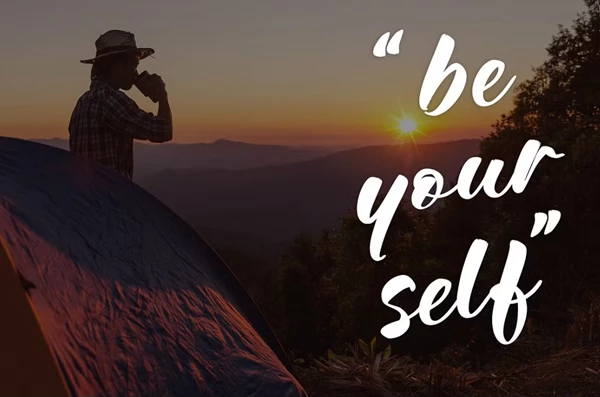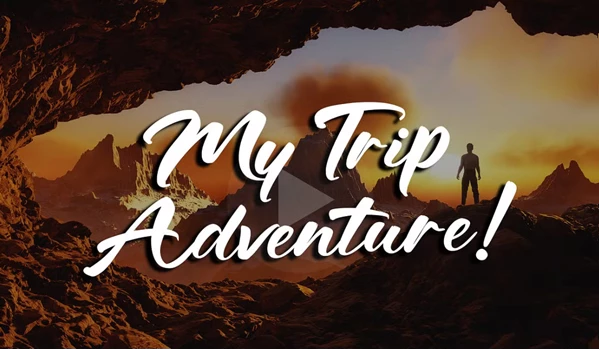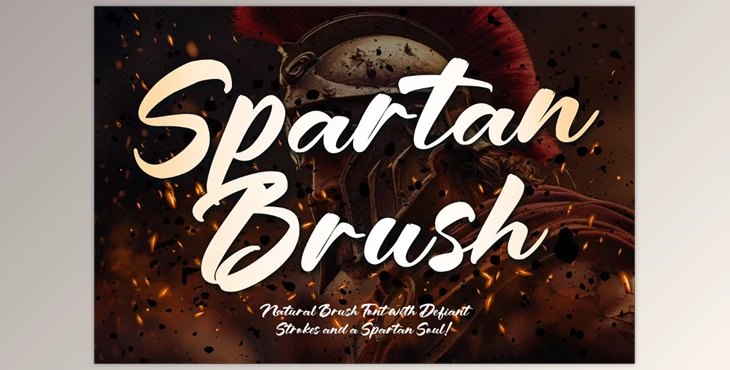
Spartan Brush - Brush Font:
The Spartan Brush font is a bold, brush handwritten typeface that represents the spirit of a warrior. This font features illustrated strokes that demonstrate the defiance of battle paired with the naturally flowing stylings of hand drawn painting. Therefore, this font is perfect for anyone looking to create logo designs, movie posters and title designs as well as any marketing endeavours needing the powerful punch of a warrior brought to life through beautifully designed text. Furthermore, any project that needs to get noticed will have its purpose filled with the Spartan Brush font, providing the necessary strength and energy behind any project. Dynamic alternatives, titling fonts, ligature embellishments and full PUA encoding will ensure a commercial use approach to professional quality design with no limitations. Yet this is more than a font; it's the spirit of a Spartan who can help you tackle any design project in no time.